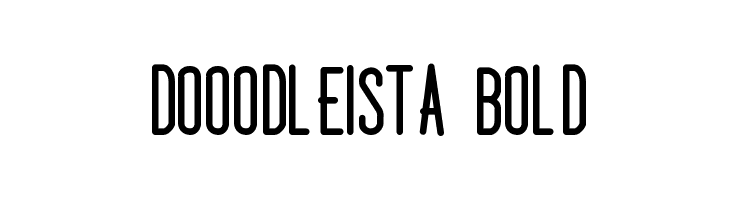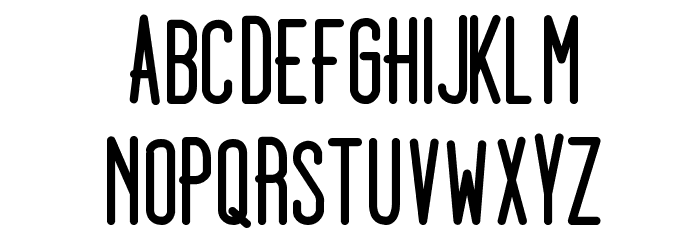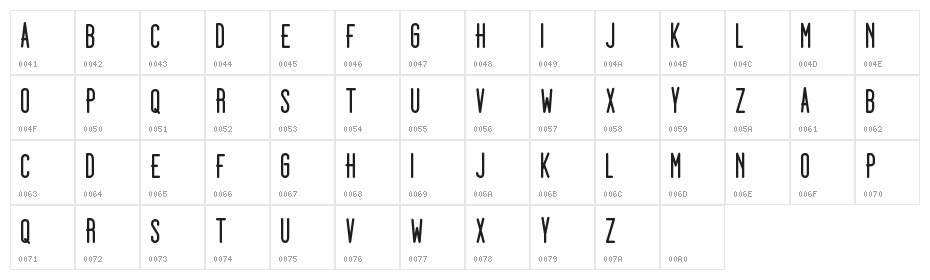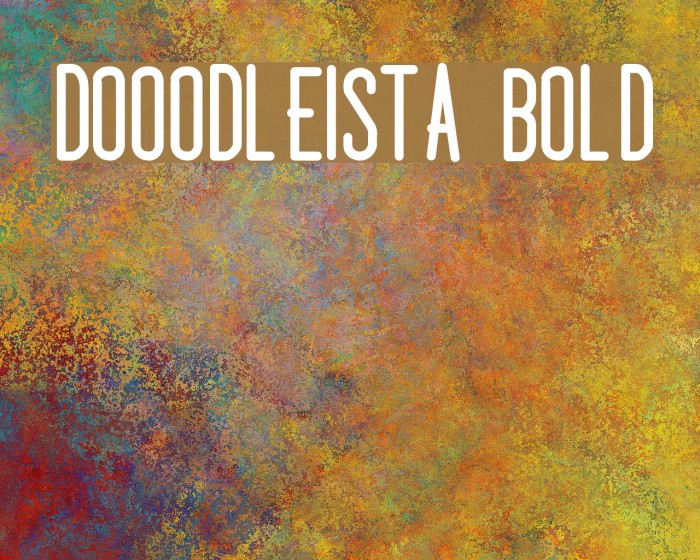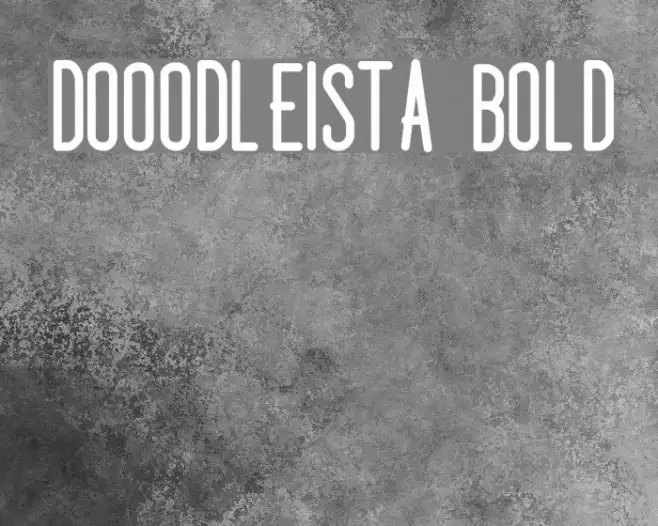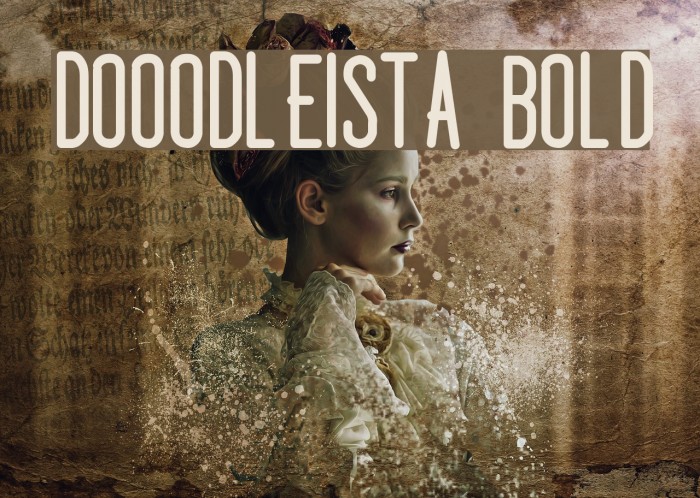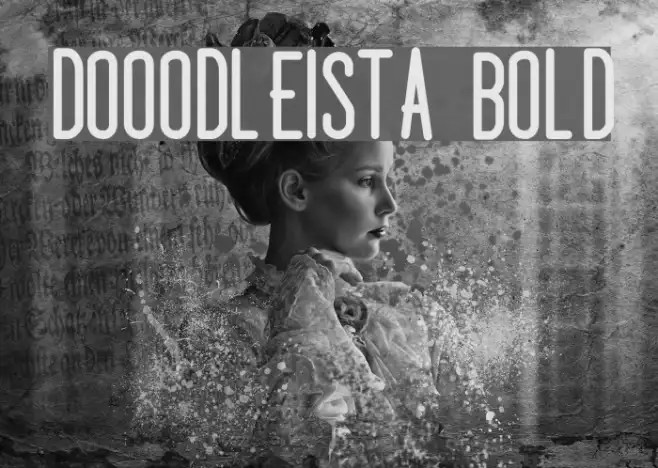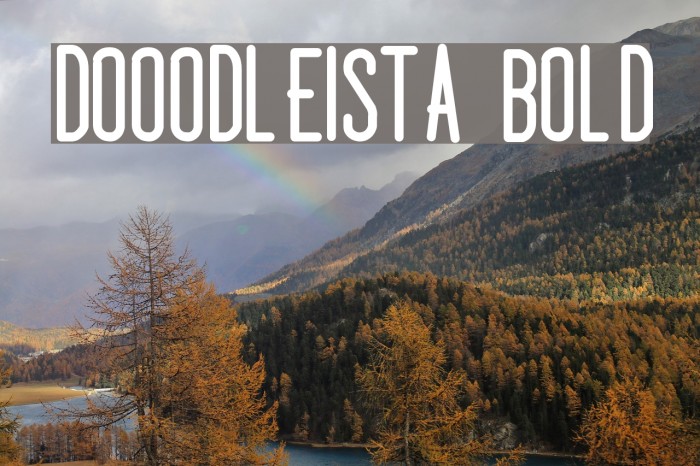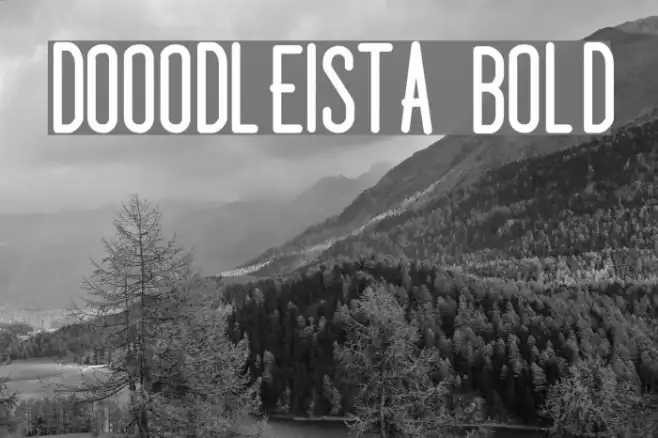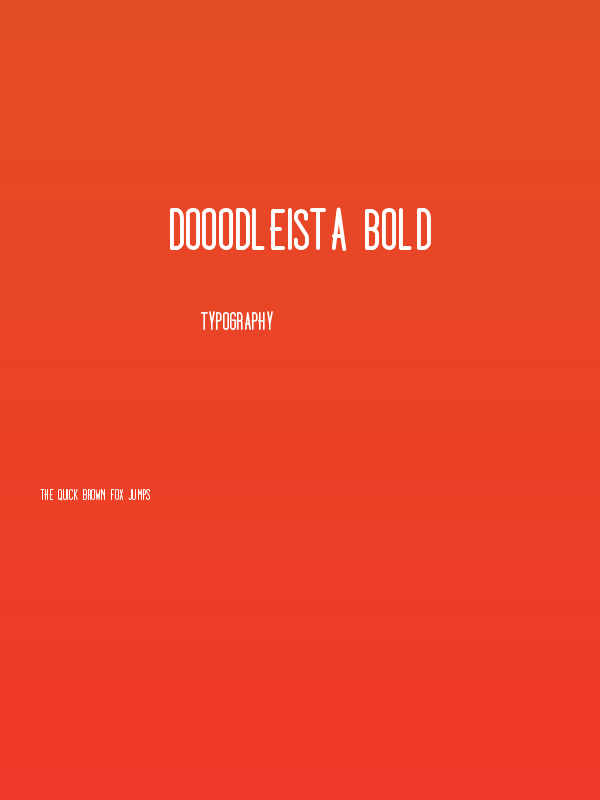
Dooodleista Bold Font
Dooodleista Bold Description
This font features a bold, playful style with elongated, rounded characters that convey a sense of fun and creativity. The uppercase letters are uniform in height, with a consistent stroke width that gives the font a cohesive appearance. The rounded edges and smooth curves add a friendly and approachable feel, making it suitable for a variety of informal applications. The font maintains a modern aesthetic while incorporating elements of a handwritten style, which enhances its versatility. The spacing between characters is tight, contributing to its compact and efficient design. This font is ideal for projects that require a touch of whimsy and personality.
| Proposed Projects | Ideal for children's books, playful branding, creative posters, and social media graphics. |